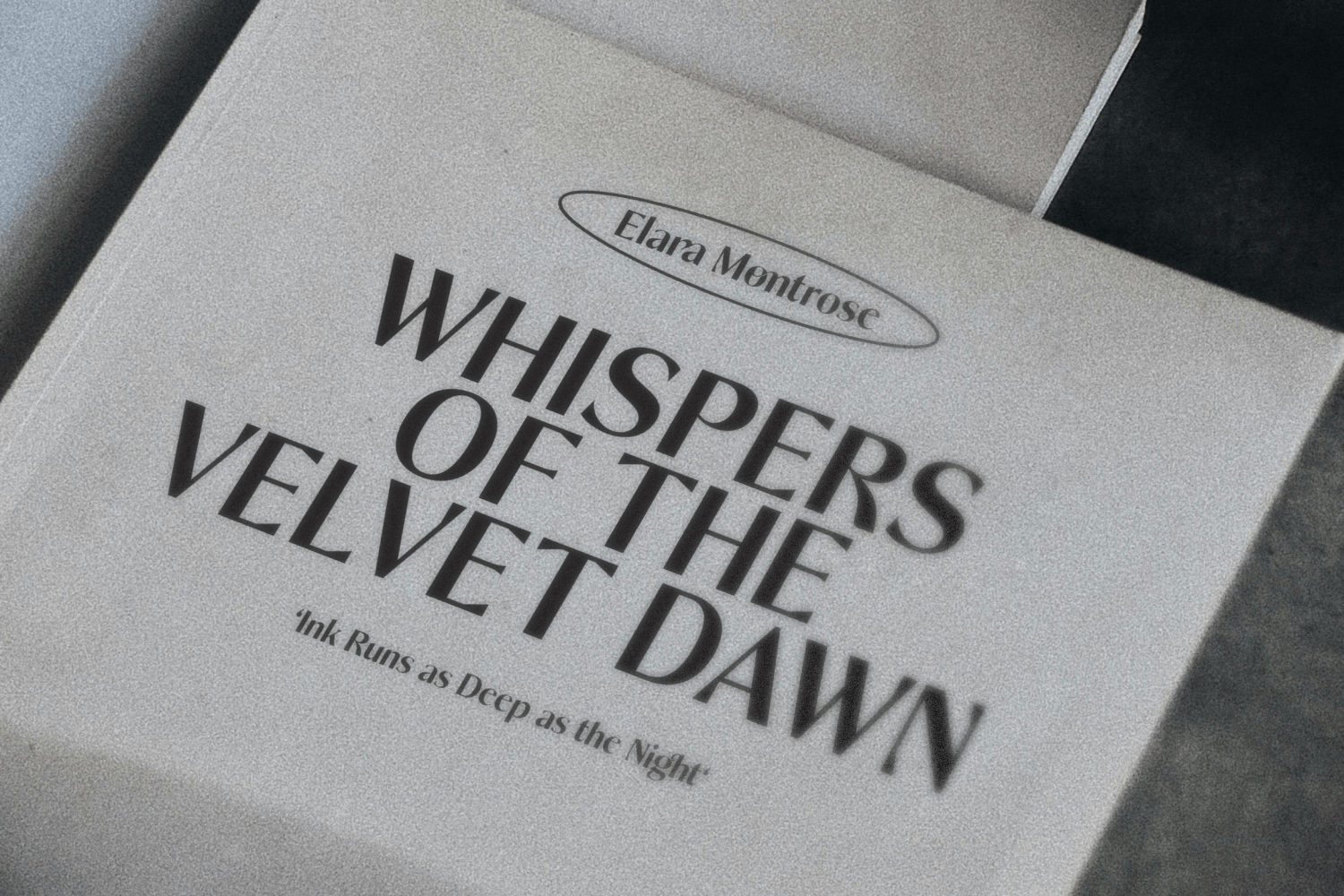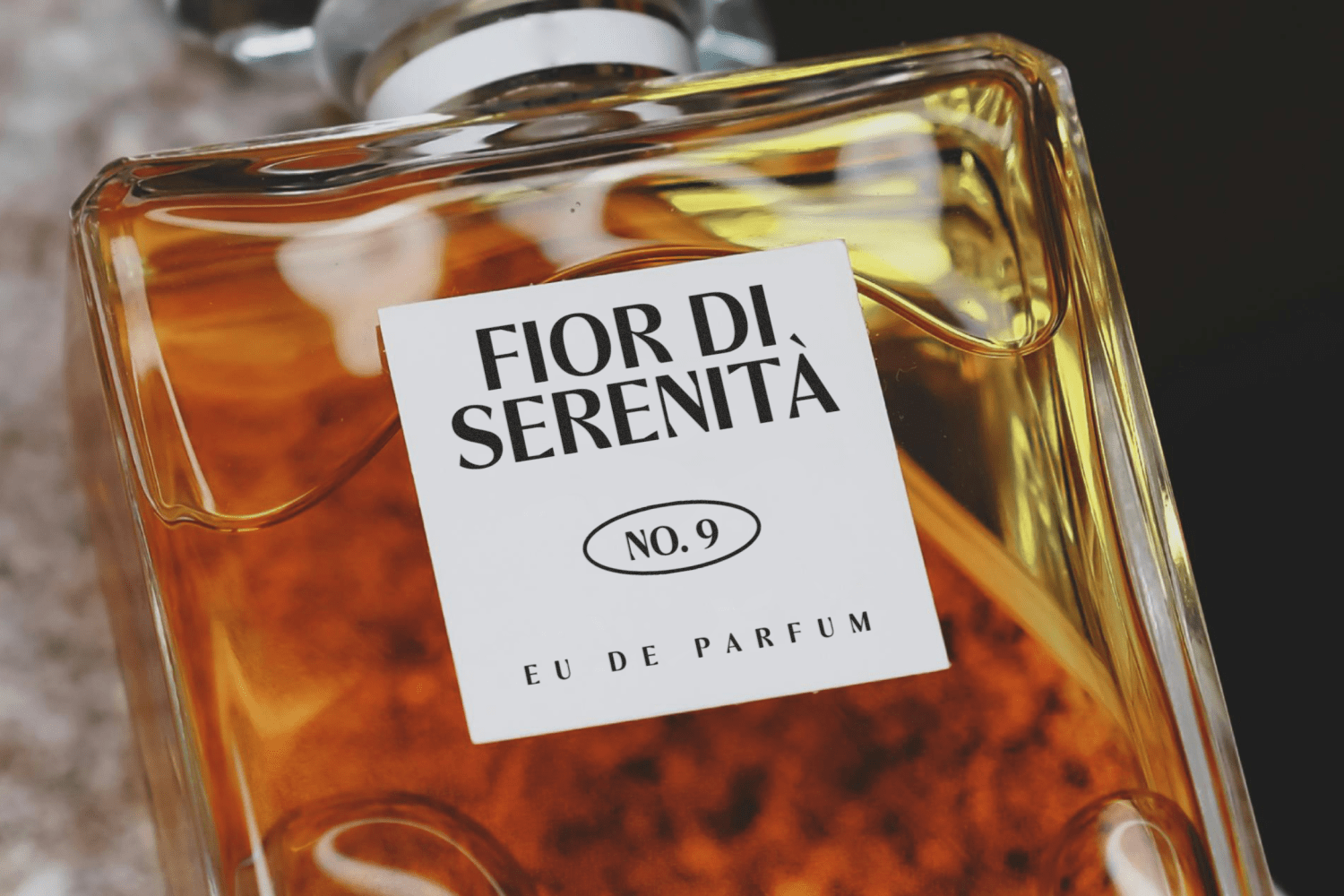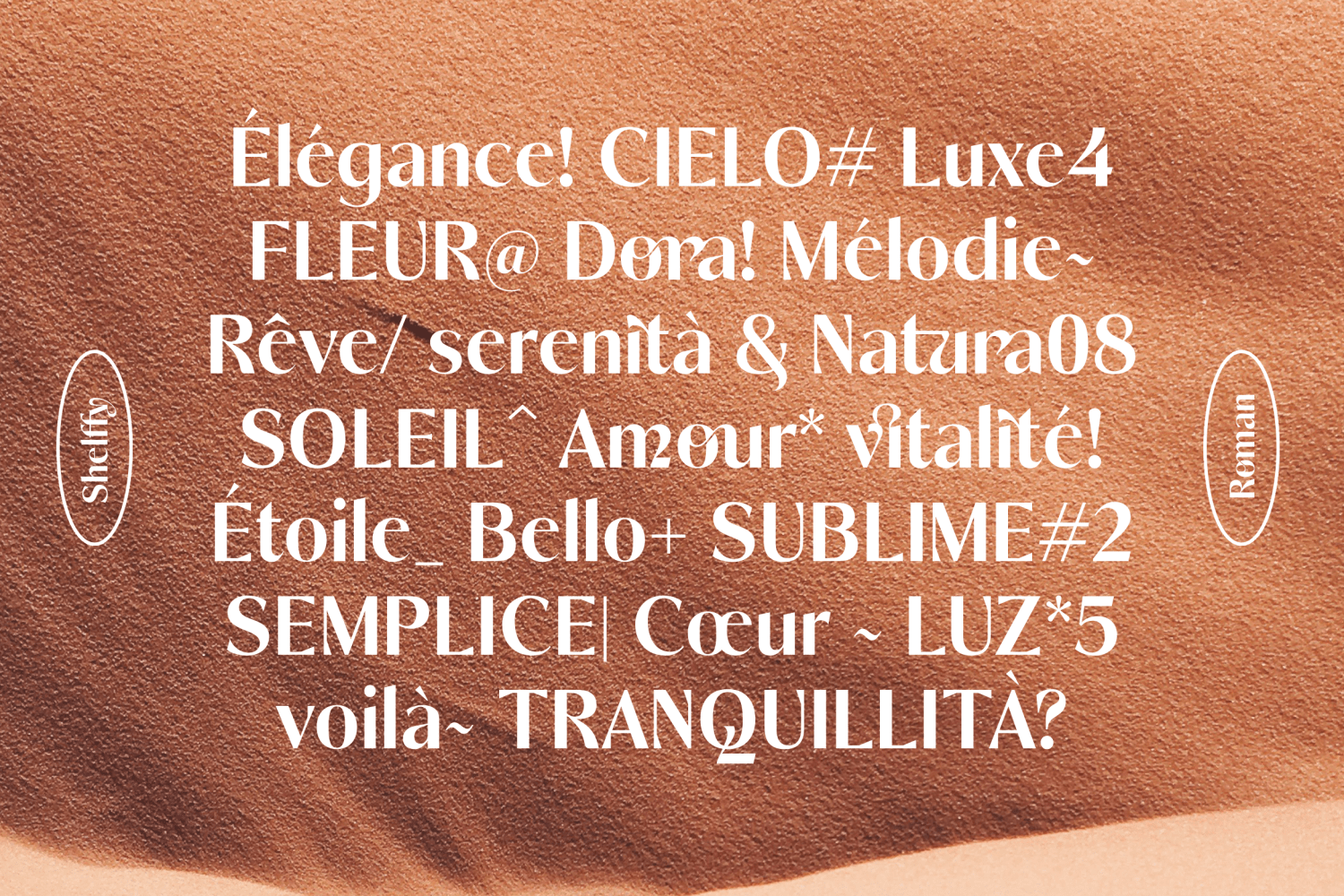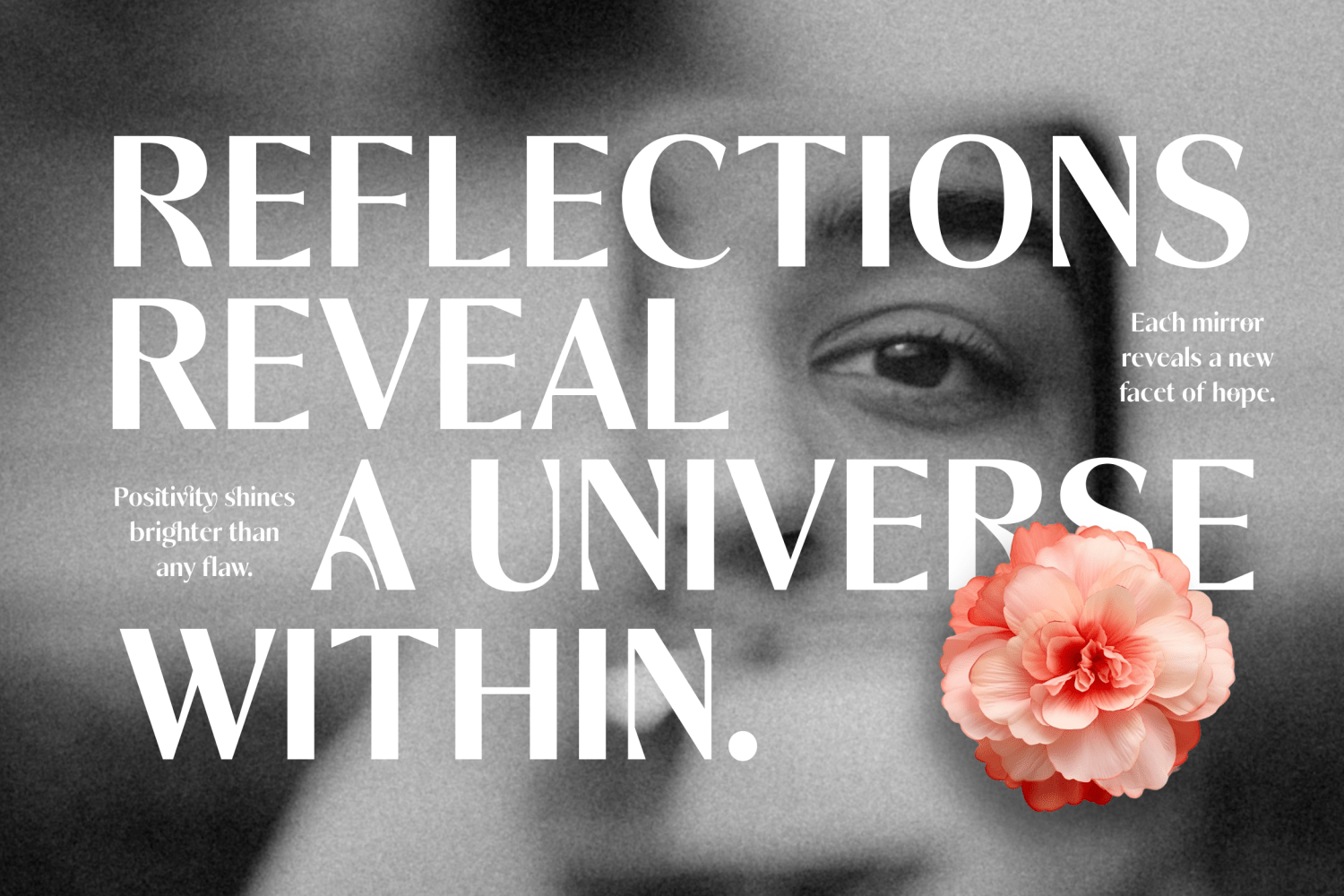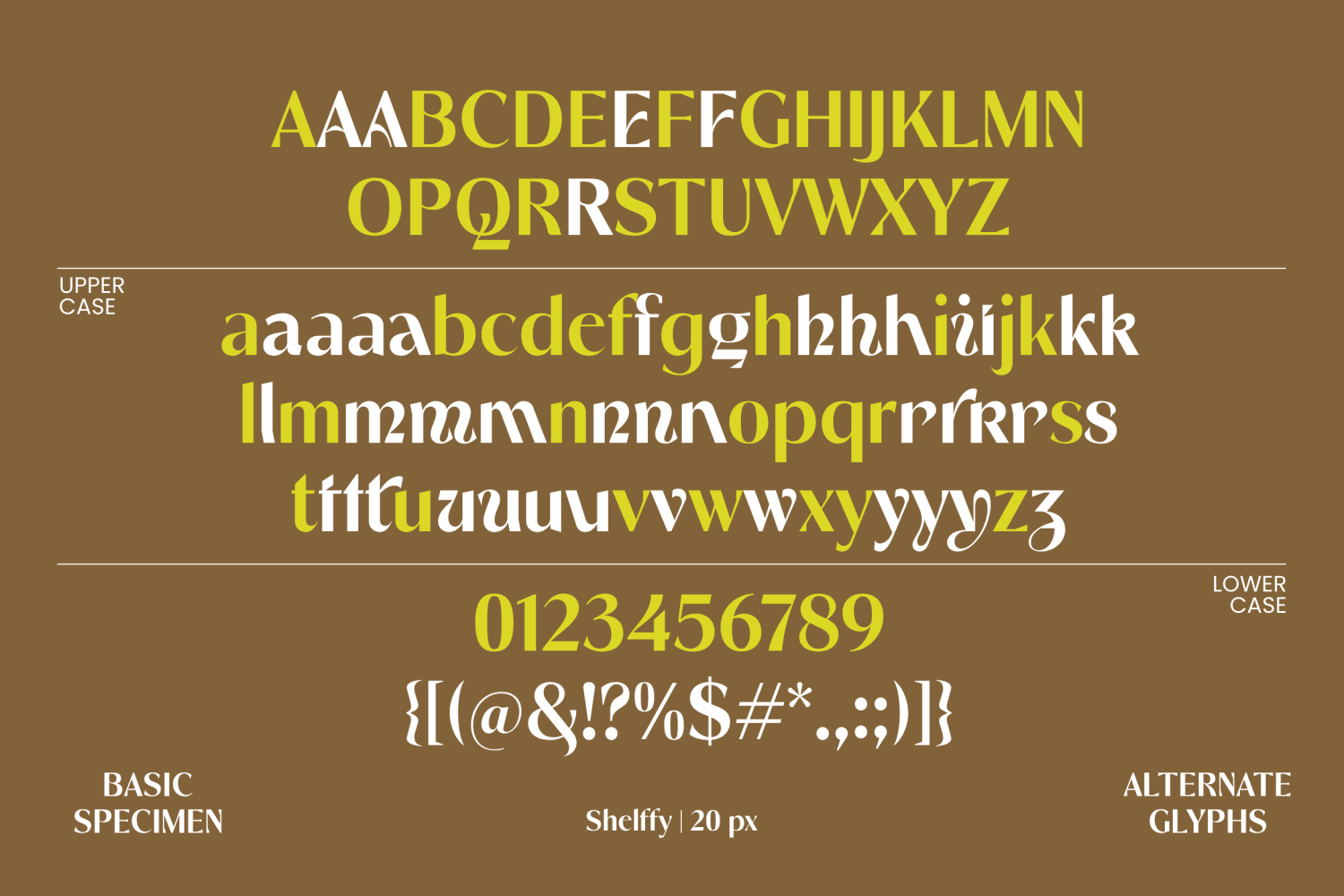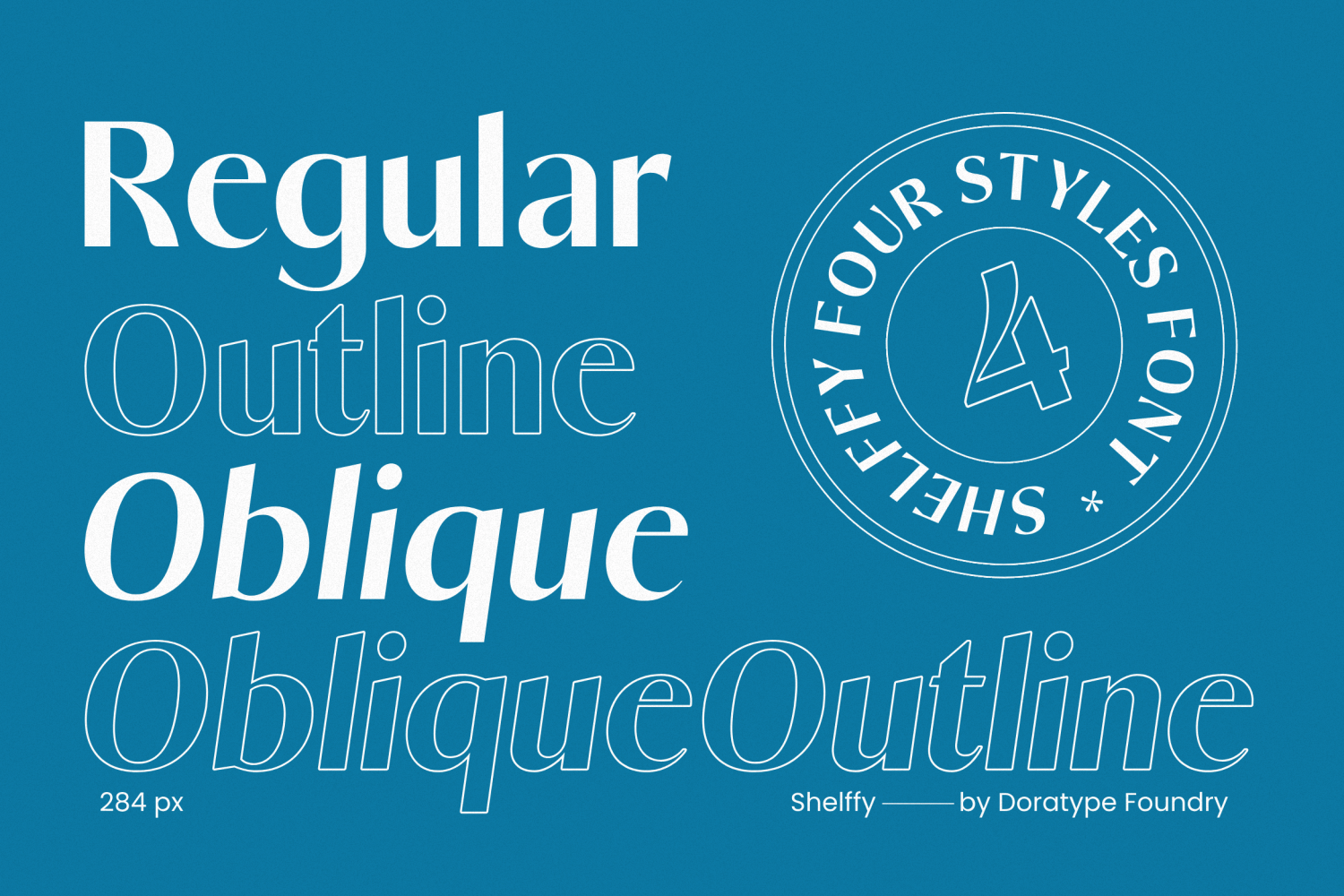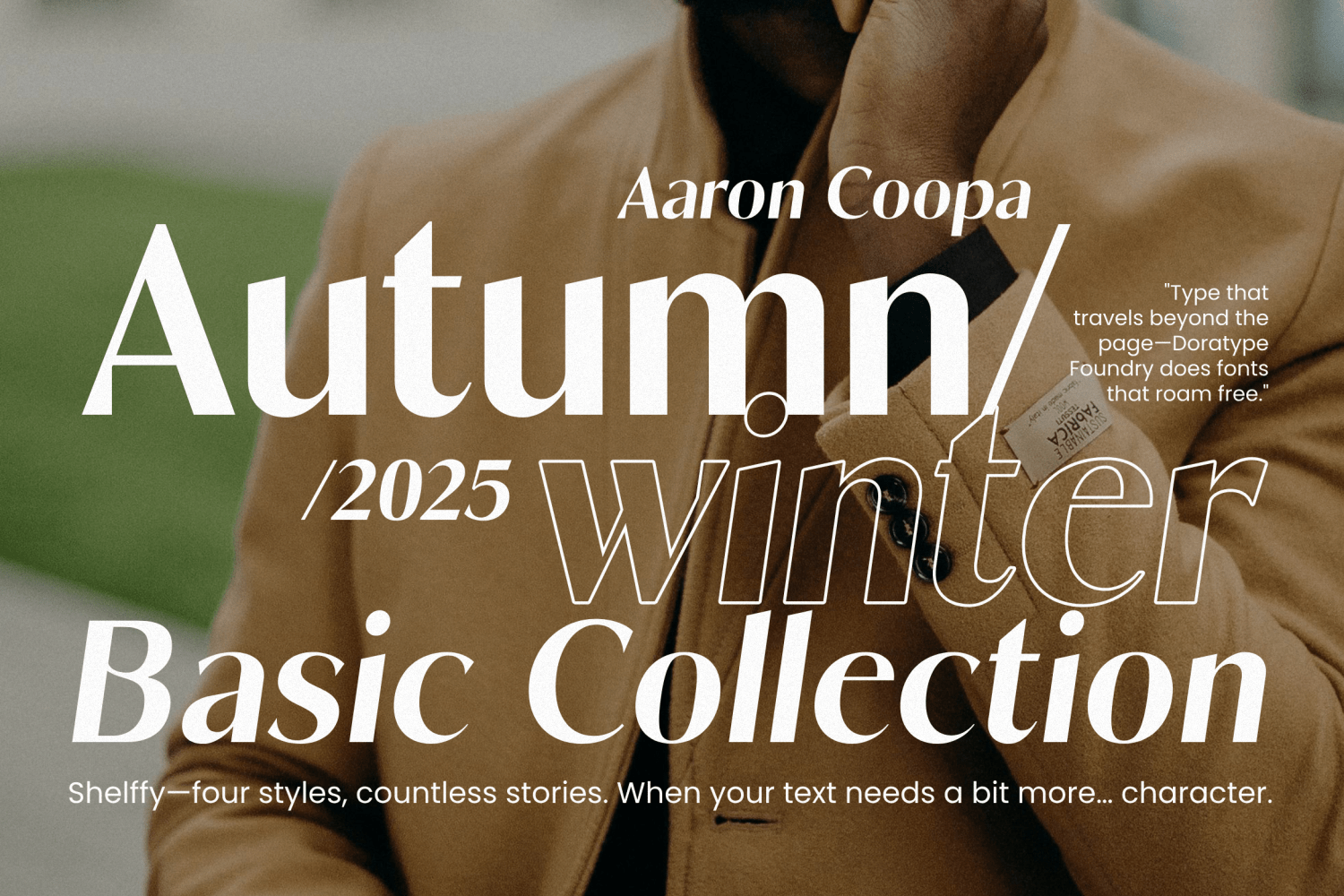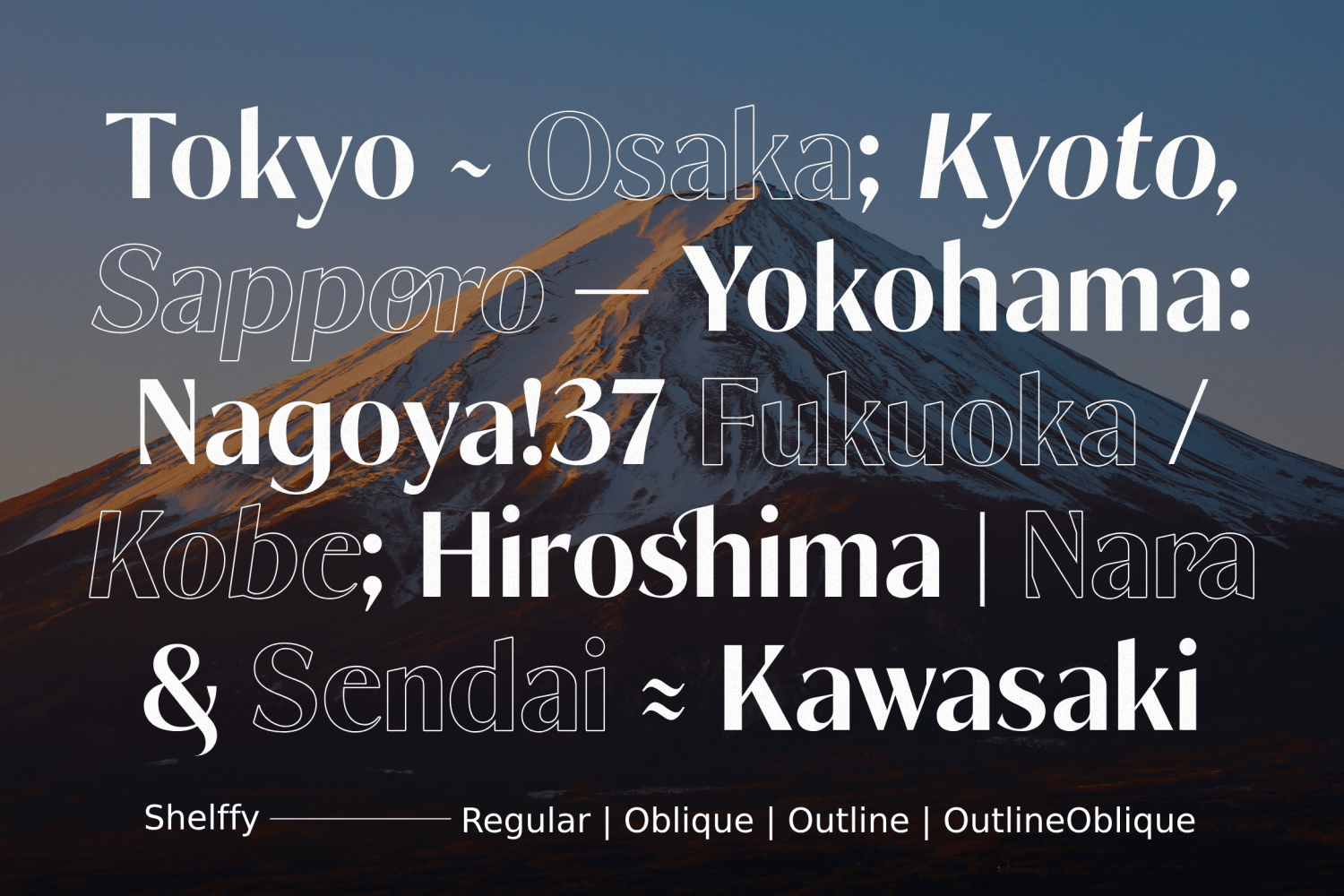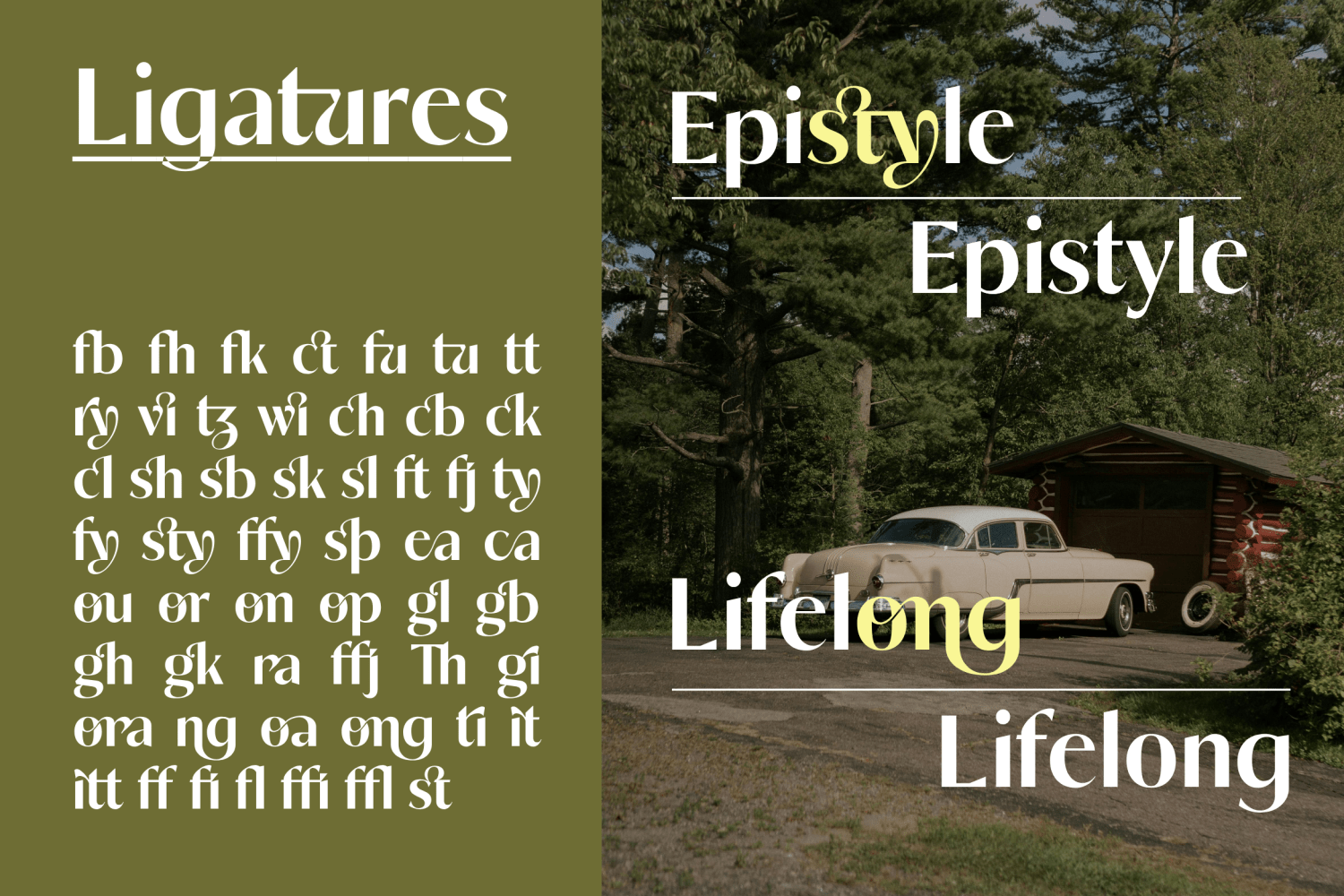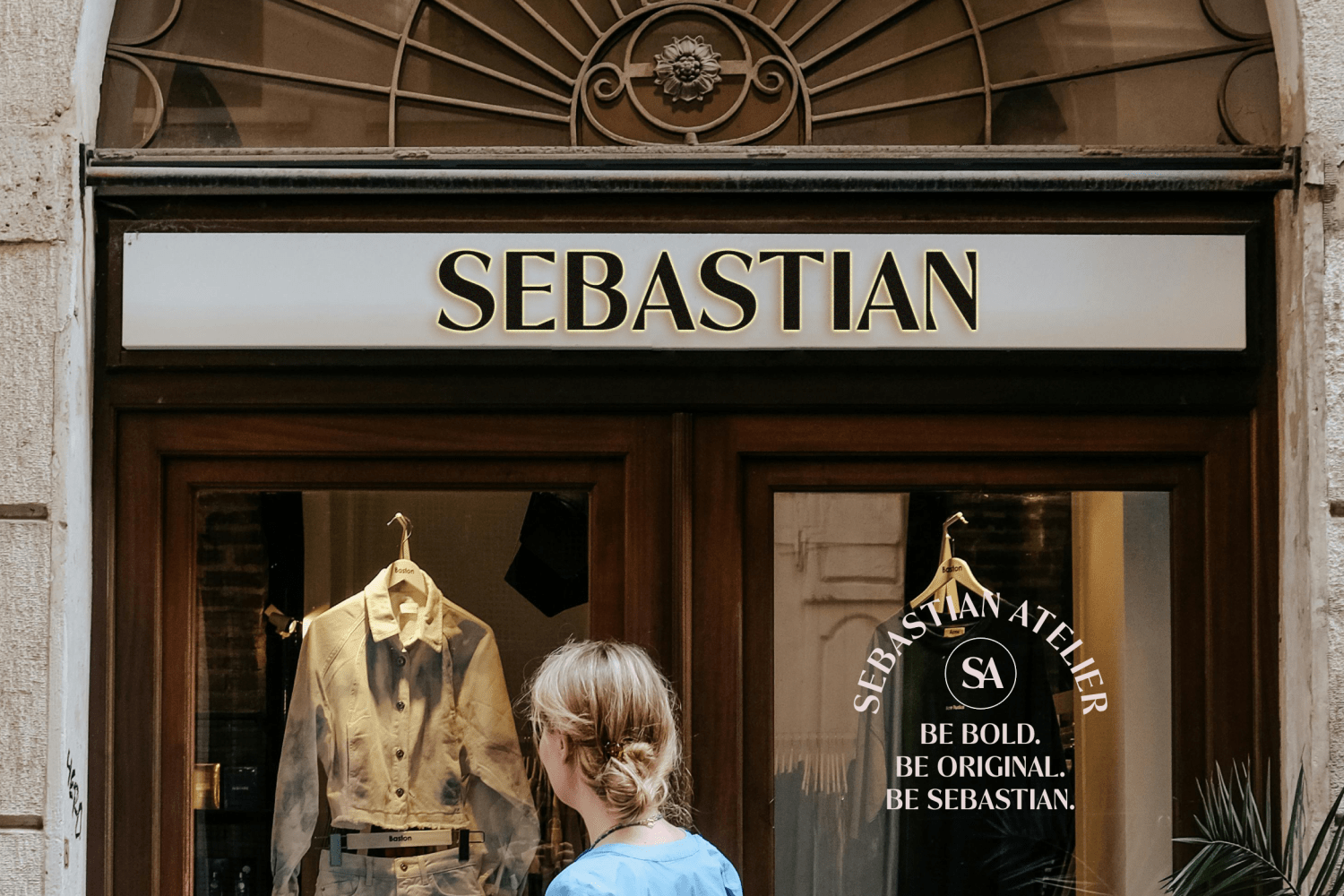
Shelffy
Font Family by Dora Typefoundry
Introducing Shelffy is a Sans Serif display characterized by balanced proportions and elegance designed with clean lines to attract attention without being distracting. This font is suitable for a variety of applications, from marketing materials to user interfaces.